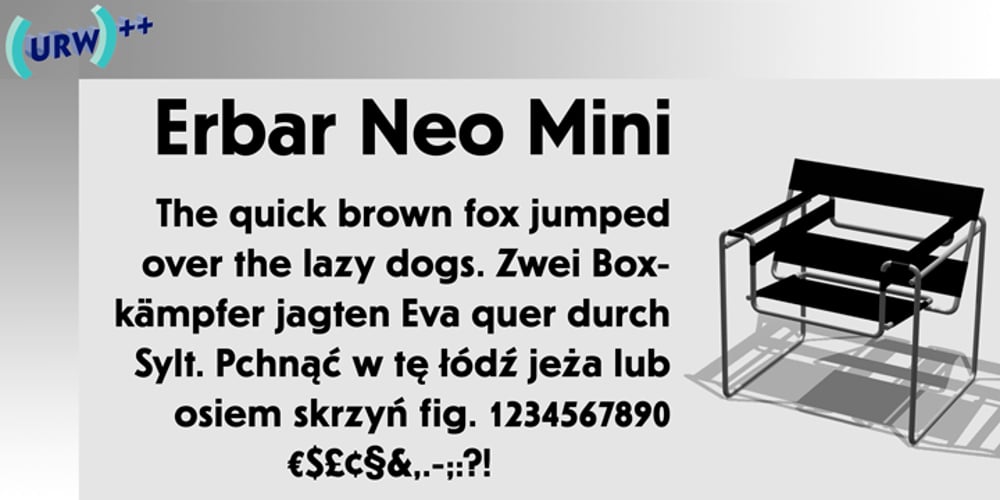
Erbar Neo Mini
Erbar Neo Mini font
Erbar Neo Mini Font Family was designed by Jakob Erbar and published by URW Type Foundry. Erbar Neo Mini contains 1 styles and family package options. The Erbar font was designed by Jakob Erbar for the Ludwig & Mayer/Neufville foundry in 1930.